Have you ever seen numbers that look like letters? These are Roman numerals! Roman numerals are used in books, clocks, and even building names. But what if you need to write these numerals on a computer? You need a font that looks good and is easy to read. What is the best font for Roman numerals? Let’s dive in and find out!
Key Takeaways
- The best font for Roman numerals is clear and easy to read.
- Serif fonts often work well for Roman numerals.
- Consider font size and spacing for readability.
- Use bold fonts to highlight Roman numerals.
- Experiment with different fonts to find your favorite.
Best Font For Roman Numerals: Times New Roman
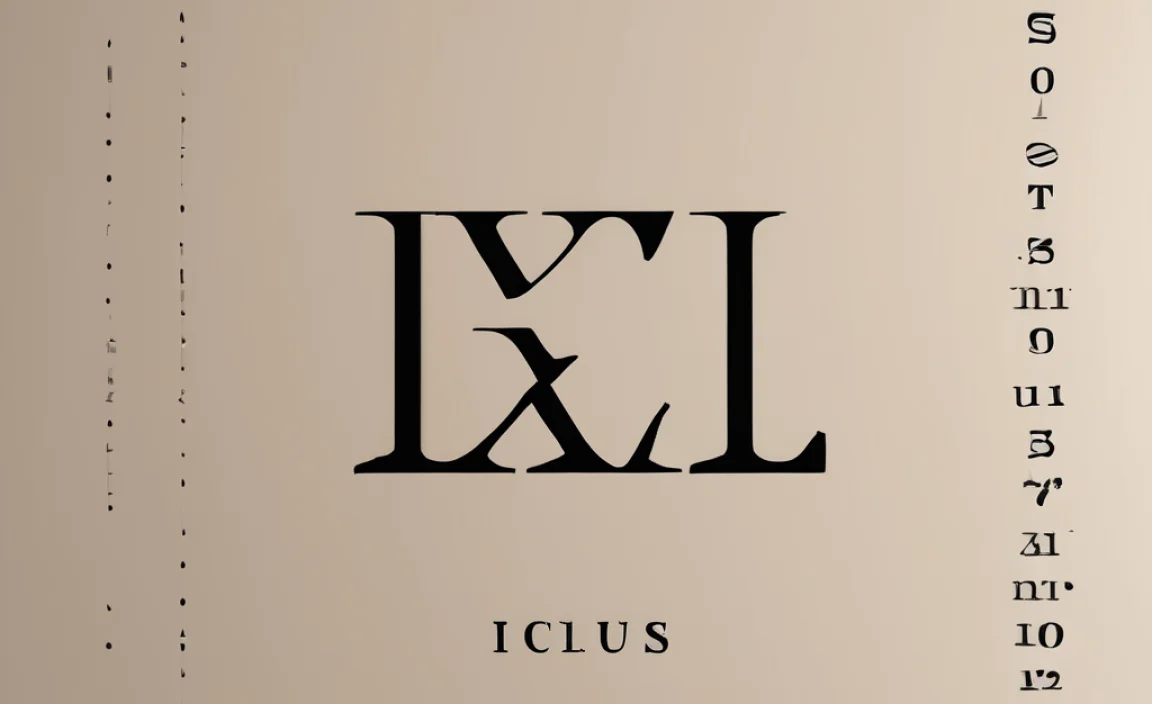
Times New Roman is a classic and popular font. Many people use it in books, newspapers, and computer documents. It has a traditional look that makes Roman numerals clear and easy to read. This font has serifs, which are little lines at the end of each letter. These lines help make the numbers stand out. Times New Roman is perfect for Roman numerals because it is both elegant and easy to understand.
- Classic serif font style.
- Easy to read on paper and screens.
- Popular for formal documents.
- Clear display of Roman numerals.
- Traditional and professional look.
When using Times New Roman, you can be confident that your Roman numerals will look great. Whether you are writing a report, making a clock, or designing a building name, this font is a good choice. Times New Roman is sometimes the default font on computers, so it’s easy to use and find. You don’t need to spend extra time searching for a fancy font when this one does the job well.
Fun Fact: Times New Roman was designed in 1931 for The Times newspaper in London!
Why Serif Fonts Are Ideal For Roman Numerals
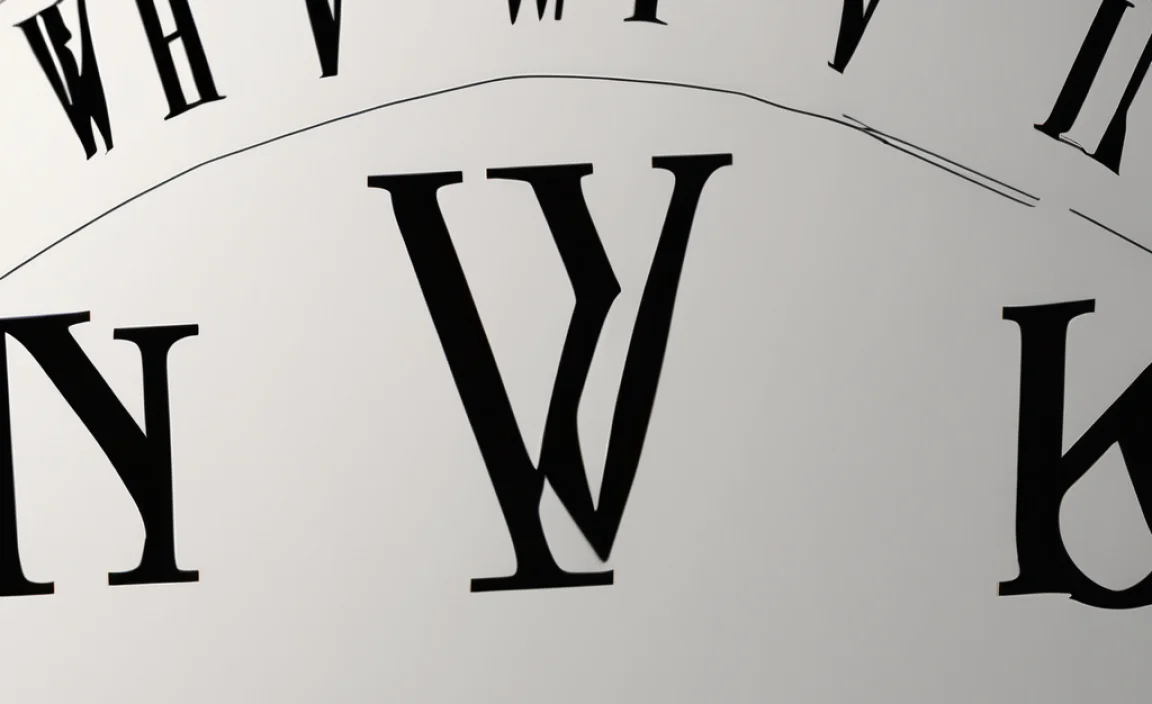
Serif fonts have little lines, called serifs, at the ends of letters and numbers. These lines can make reading easier for the eyes. When it comes to Roman numerals, serif fonts can make a big difference. The best font for Roman numerals often includes serifs for added clarity. Fonts like Times New Roman, Georgia, and Garamond all have these helpful serifs. They can make your Roman numerals look neat and professional.
- Serifs add extra detail to numbers.
- Serif fonts are often used in books.
- Great for formal and classy designs.
- Helps differentiate similar numbers.
- Increases readability in long texts.
Imagine you are reading a book with many Roman numerals. A serif font can make the numbers stand out, so you don’t mix them up. When designing something important, like an invitation or a certificate, serif fonts can give a touch of elegance. They help your Roman numerals look smart and polished.
Fun Fact: The word “serif” comes from the Dutch word “schreef,” meaning “line” or “stroke.”
How Font Size Affects Roman Numerals
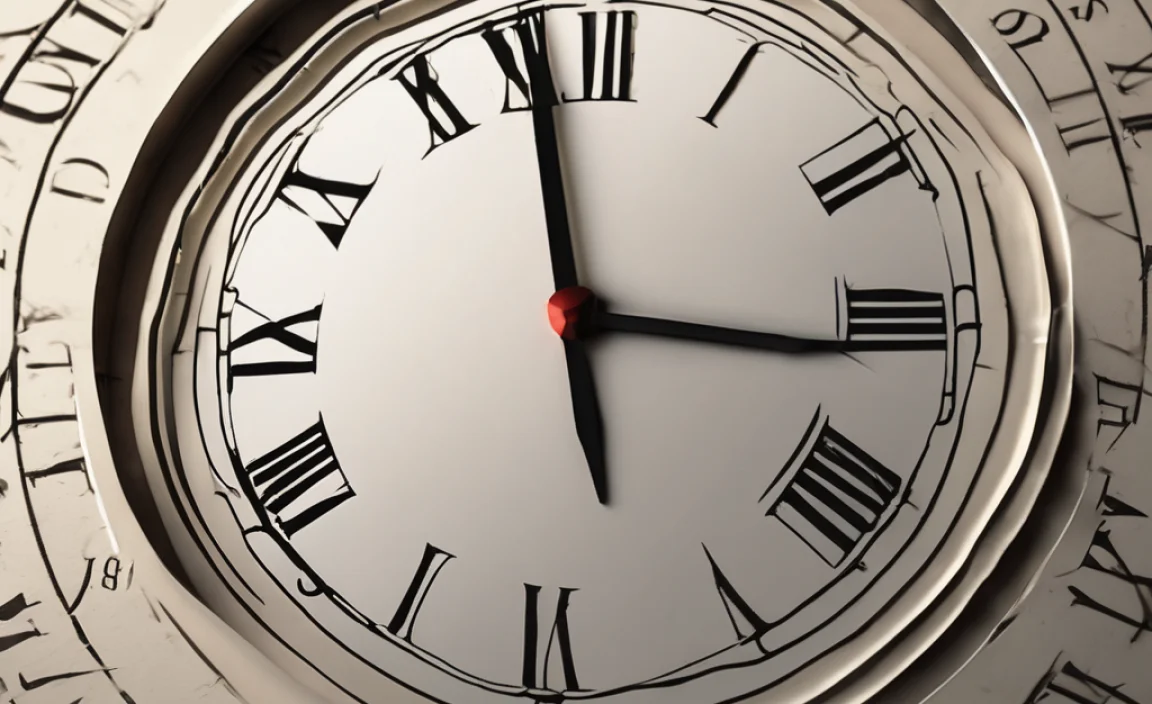
Did you know the size of a font can change how Roman numerals look? When you pick the best font for Roman numerals, size matters! A small font might make the numerals hard to read. A large font makes them clear but can take up more space. Balancing font size is key for making Roman numerals easy to understand, whether you’re reading a book or checking the time on a clock.
- Font size affects readability.
- Small sizes can be hard to read.
- Large sizes take up more space.
- Balance is key for clarity.
- Consider space and purpose.
For example, if you’re using Roman numerals on a clock, you need them large enough to see from across the room. On paper, you might choose a smaller size to save space. Make sure to test different sizes to see what looks best for your purpose.
Fun Fact: The standard font size for most books is 12 points!
Bold Fonts Make Roman Numerals Stand Out
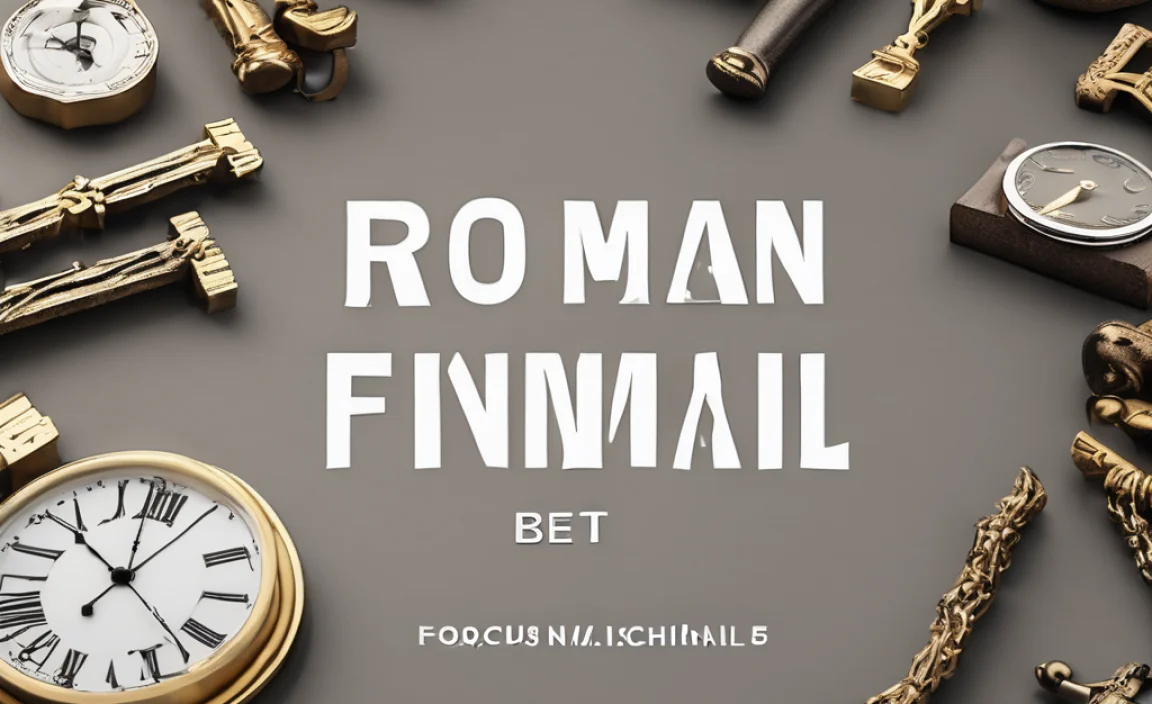
Have you ever tried using bold fonts? They can make Roman numerals pop! When you need your numbers to stand out, bold fonts are your best friend. The best font for Roman numerals can be a bold version of a serif or sans-serif font. Making numerals bold helps them grab attention, whether on a page or a screen. Bold fonts are perfect for titles, headings, and signs.
- Bold fonts grab attention.
- Perfect for titles and headings.
- Enhances visibility on screens.
- Works with serif and sans-serif fonts.
- Great for designs and displays.
When you use bold fonts for Roman numerals, they become easier to spot. Try them on posters, banners, or any large display where visibility is key. Bold fonts can transform your Roman numerals from plain to powerful with a simple click.
Fun Fact: Bold fonts are often used in comic books for added drama!
Experimenting With Different Fonts For Roman Numerals
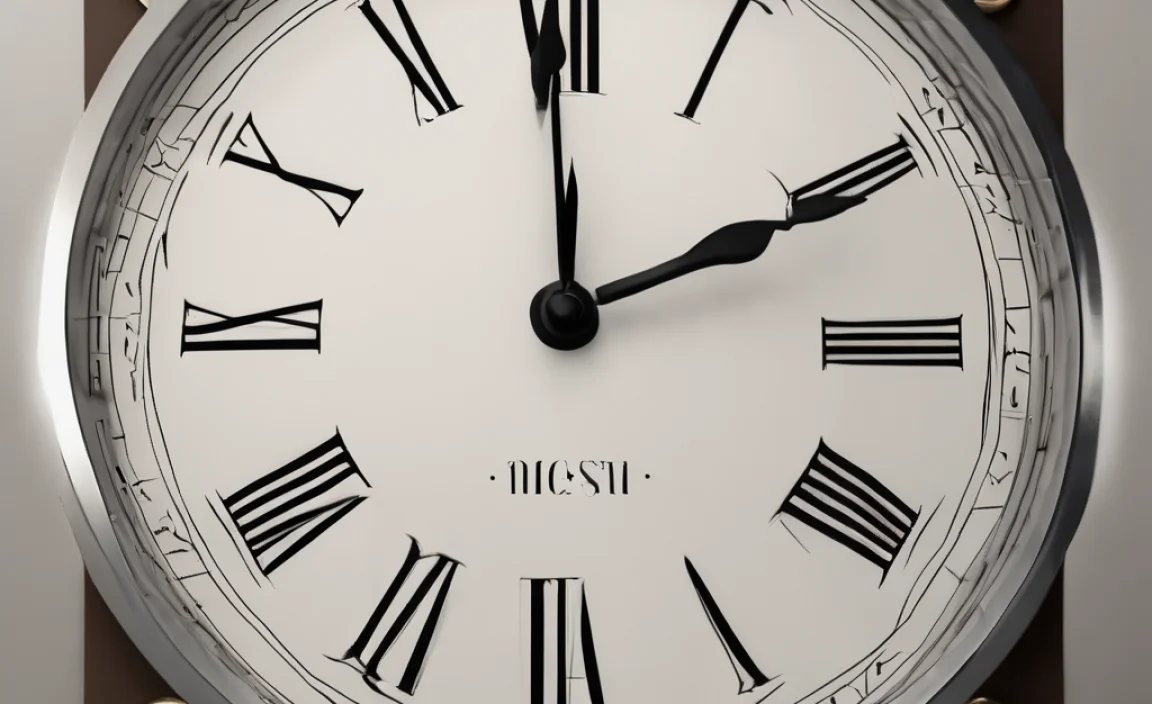
Trying different fonts can be fun and creative! Finding the best font for Roman numerals isn’t just about picking one font. It’s about exploring different styles to see what works best for you. Each font offers something unique. From classic serif fonts like Times New Roman to modern sans-serif fonts, there’s a wide range to explore. Experimenting can lead to a unique look for your project.
Question: Are there many font options for Roman numerals?
Answer: Yes, there are many font options for Roman numerals. From classic serifs to modern sans-serifs, the choices are vast. Experiment with different styles and sizes to see what works best for you. The right font can enhance your project beautifully.